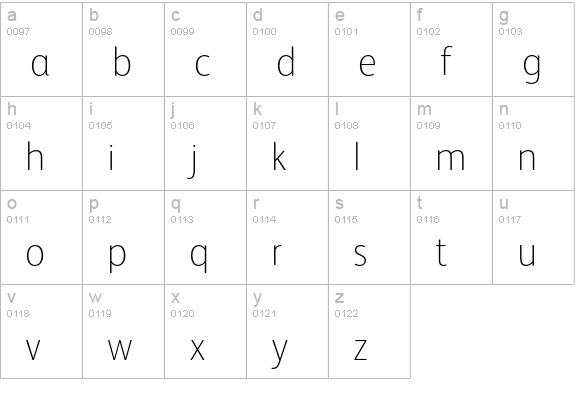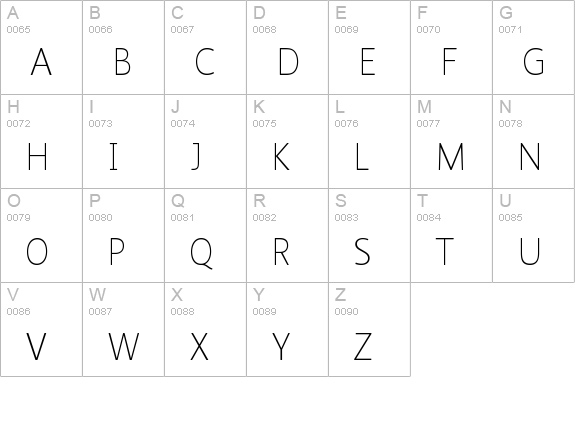
FSAlbert Thin is a delicate, low-contrast variant in the FSAlbert typeface family \xE2\x80\x94 well suited to fashion editorial, minimal branding, and high-contrast display.
FSAlbert Thin font is a sleek and modern typeface that exudes elegance and sophistication. With its delicate lines and minimalist design, this font is perfect for creating a clean and contemporary look in your projects. The thin weight of the font adds a touch of refinement and subtlety, making it ideal for use in branding, editorial design, and more. The best part about FSAlbert Thin font is that it is completely free to download at FontsMarket.com. Whether you are a designer looking to add a touch of sophistication to your work or a business owner seeking a sleek and professional font for your branding, FSAlbert Thin font is the perfect choice. Don't miss out on this opportunity to enhance your design projects with this exquisite typeface that is both stylish and versatile. Download FSAlbert Thin font today and elevate your designs to the next level.